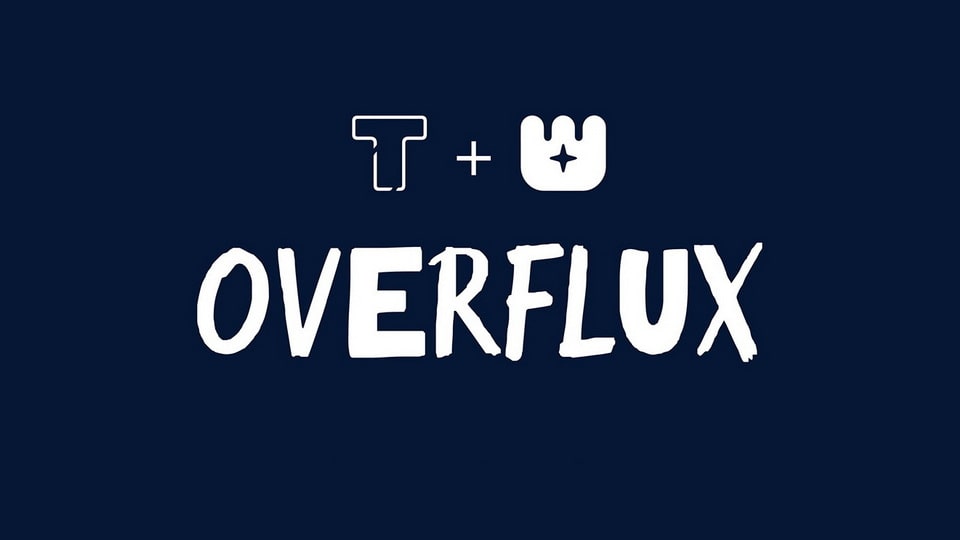
Download LT Overflux font, a typeface with contextual alternates. It was created with AI, and is designed to be easy on the eyes and aesthetically pleasing.